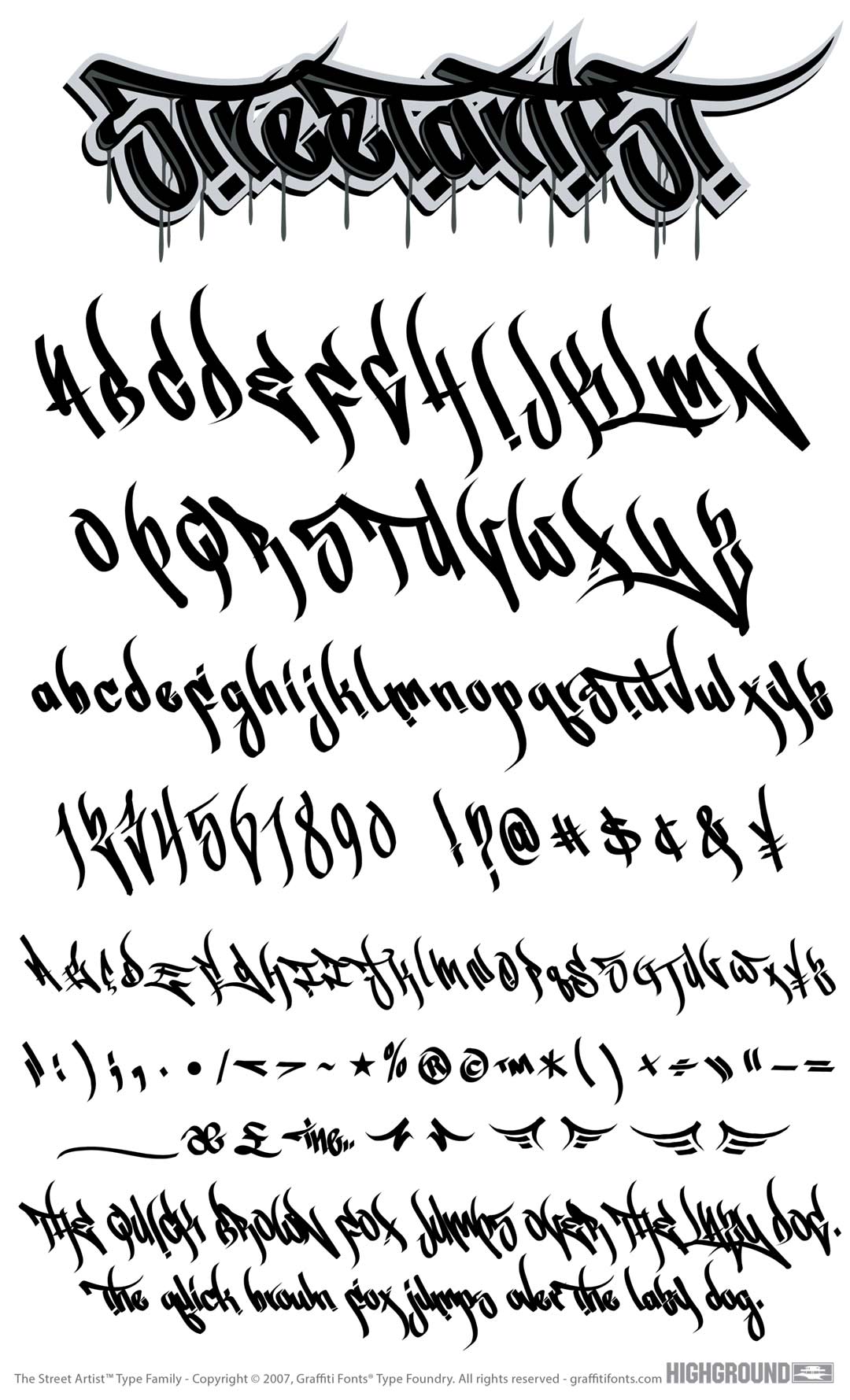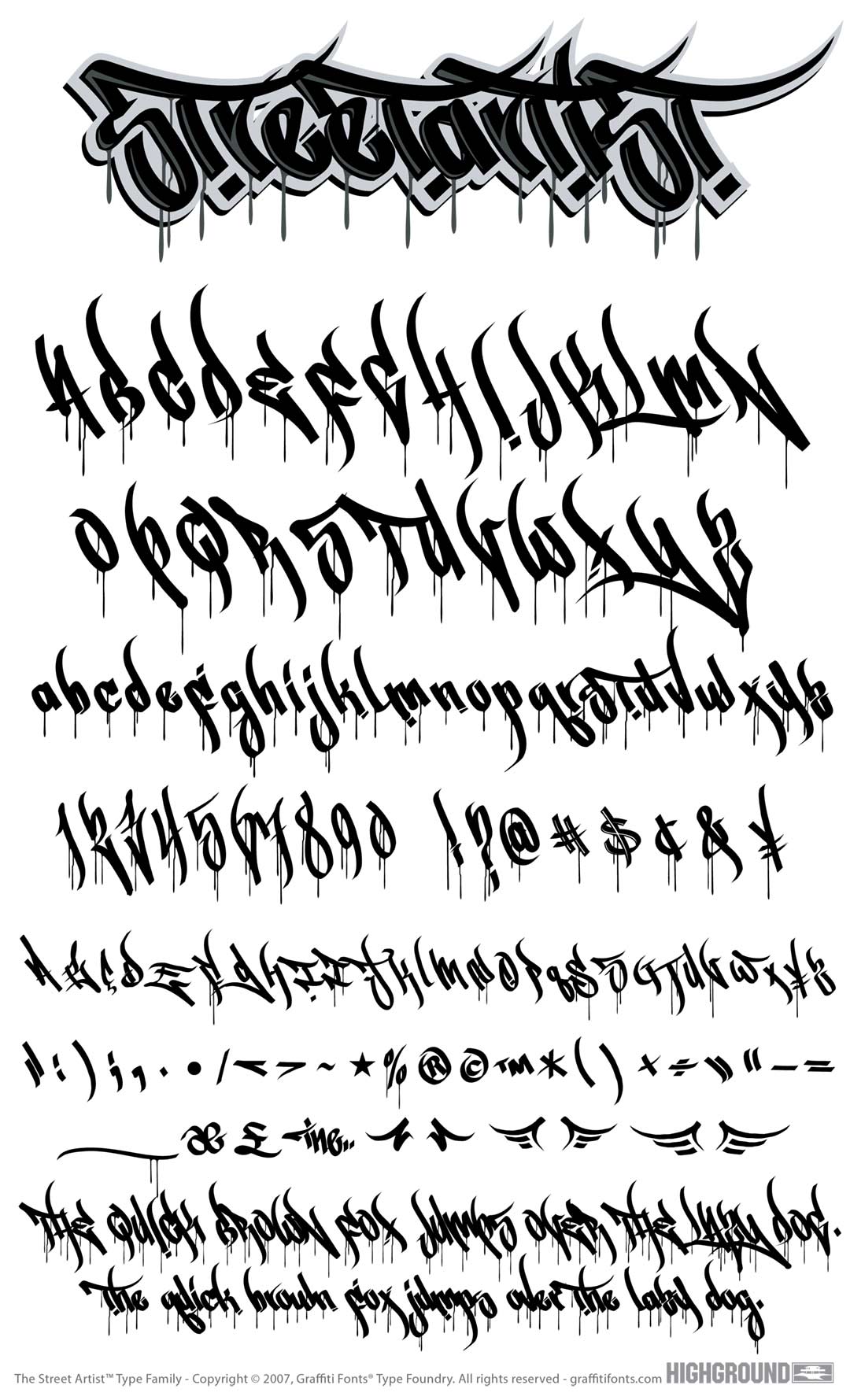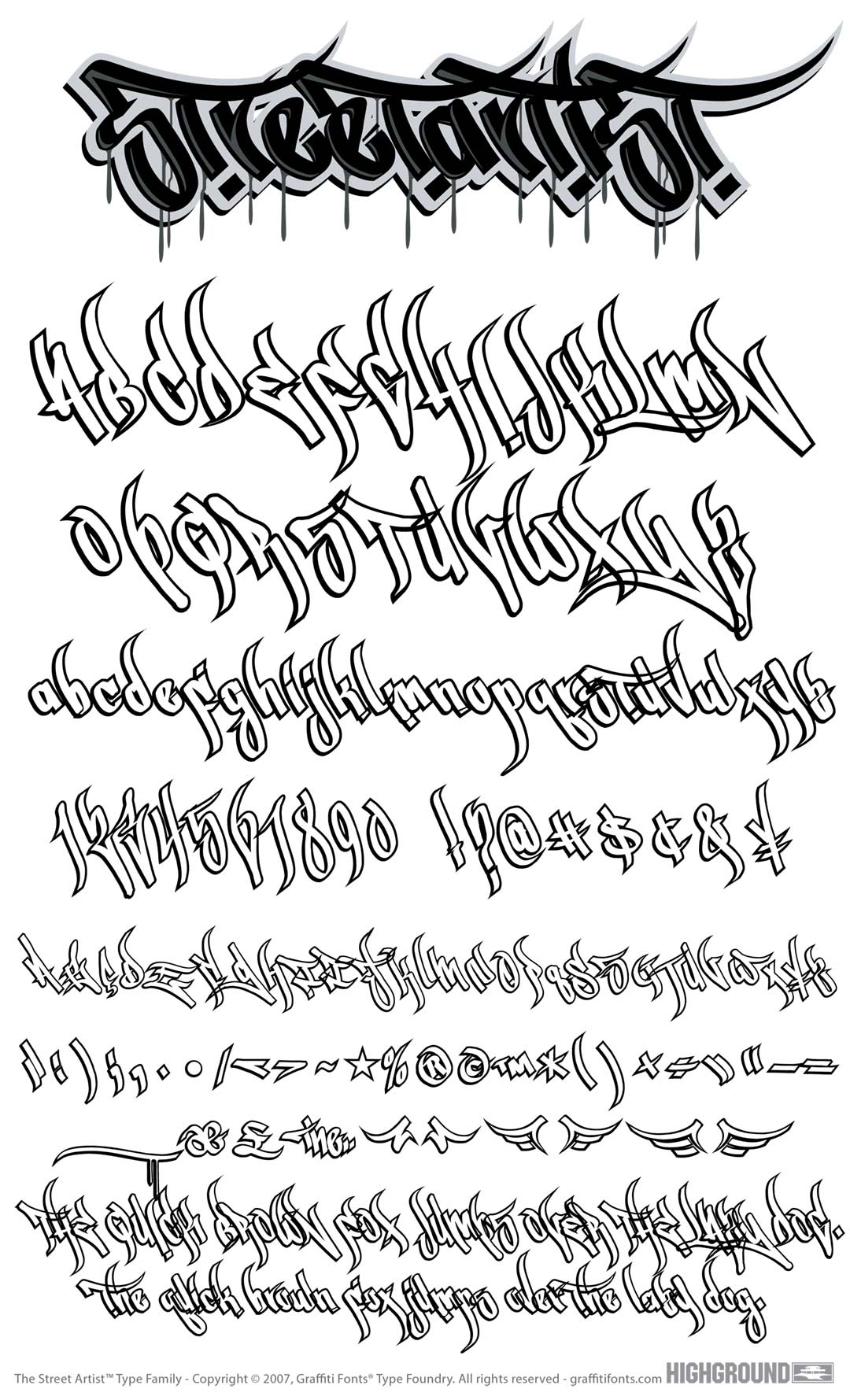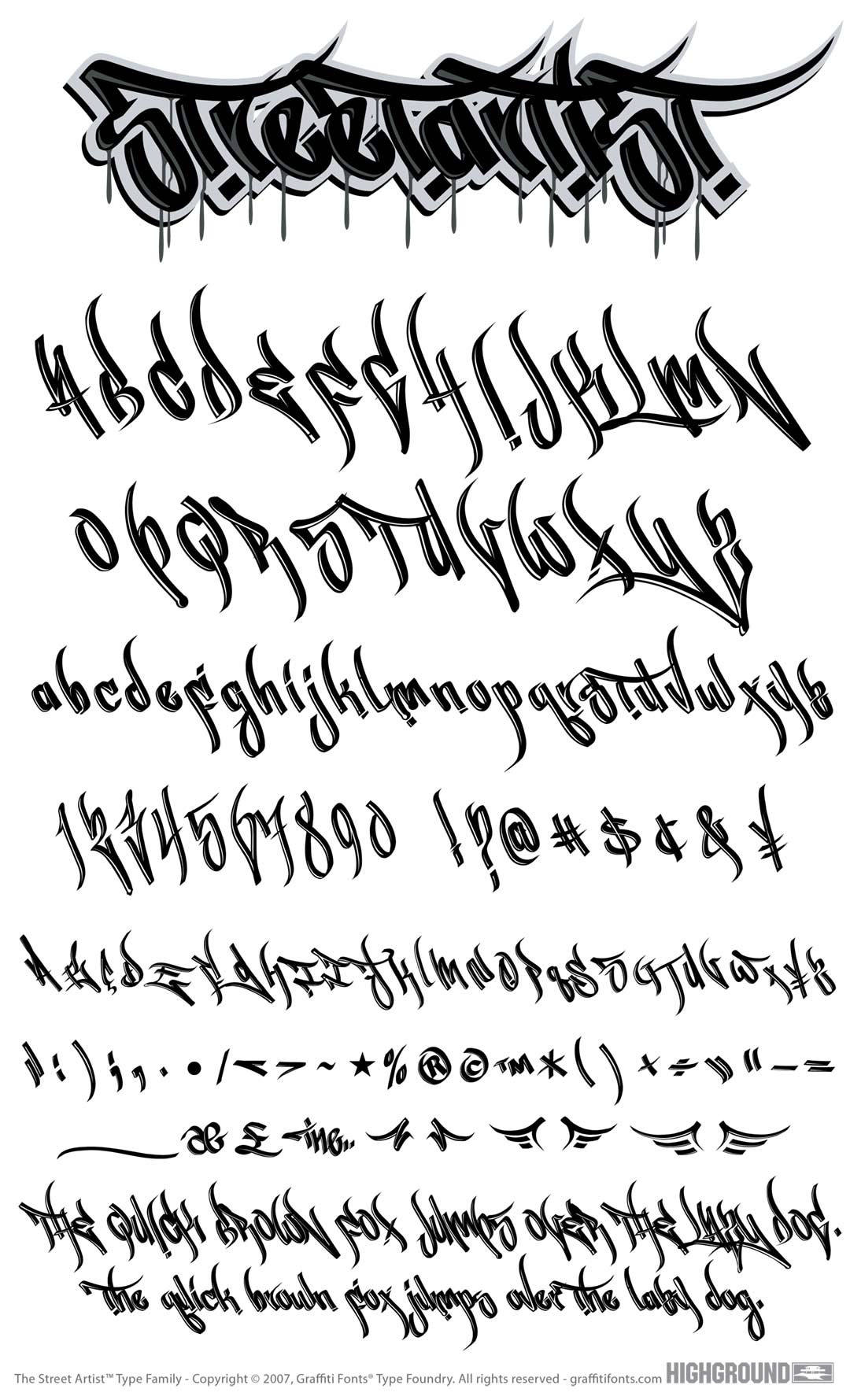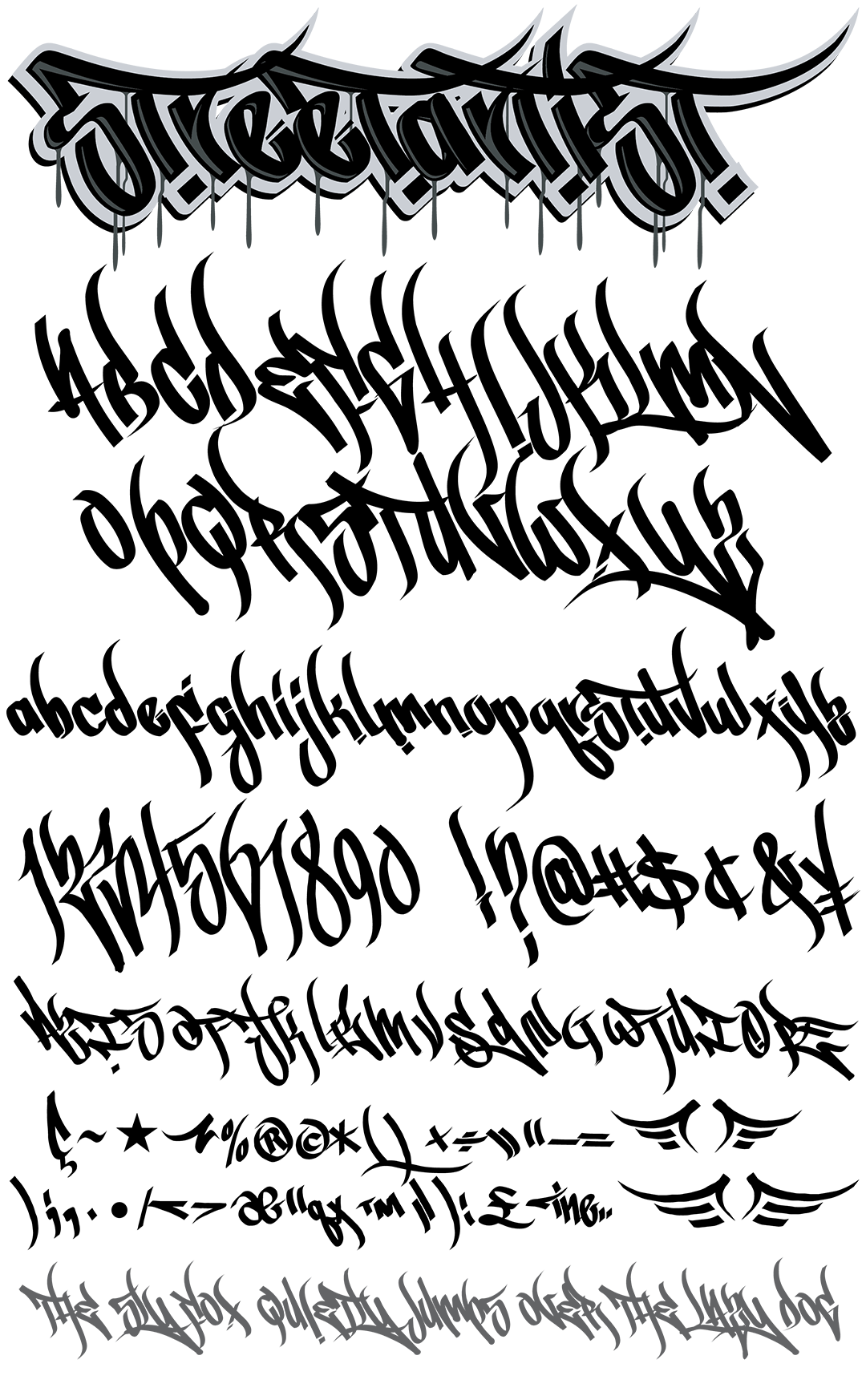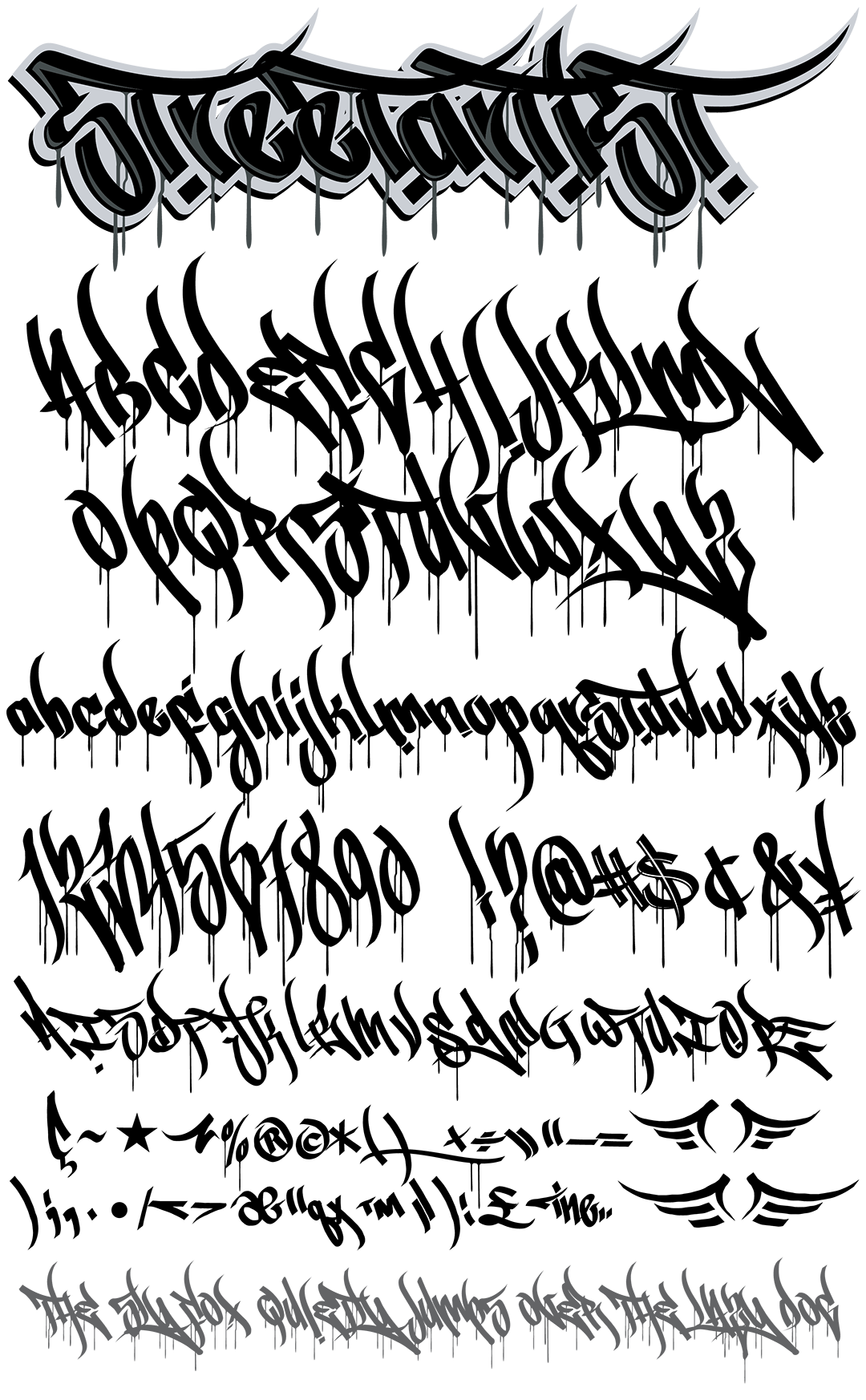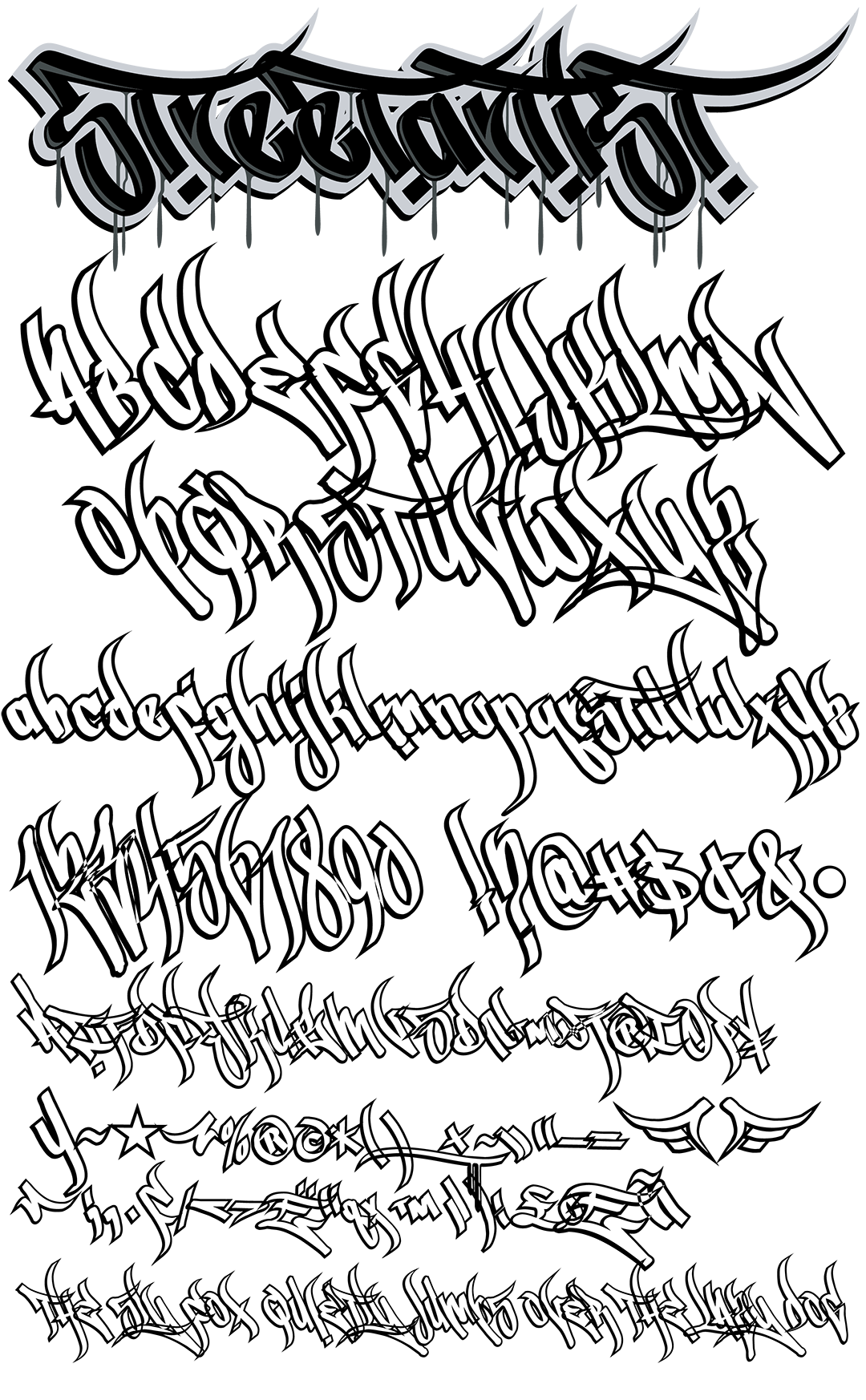
Street Artist Font
Street Artist Title Image
Street Artist Graffiti Alphabet
Street Artist Graffiti Font Family
This reverse italic graffiti script offers 191 Characters in each of 4 styles. Regular, streak, drip & outline styles are included in the set. the 4 style in this layered type system can be stacked for combined outline, fill and detail effects. With proper capitol & lowercase graffiti letters, numbers, symbols & punctuation as well as multi-language support this legible graffiti handstyle is versatile & clean while retaining the authenticity of the original chisel tip marker style.